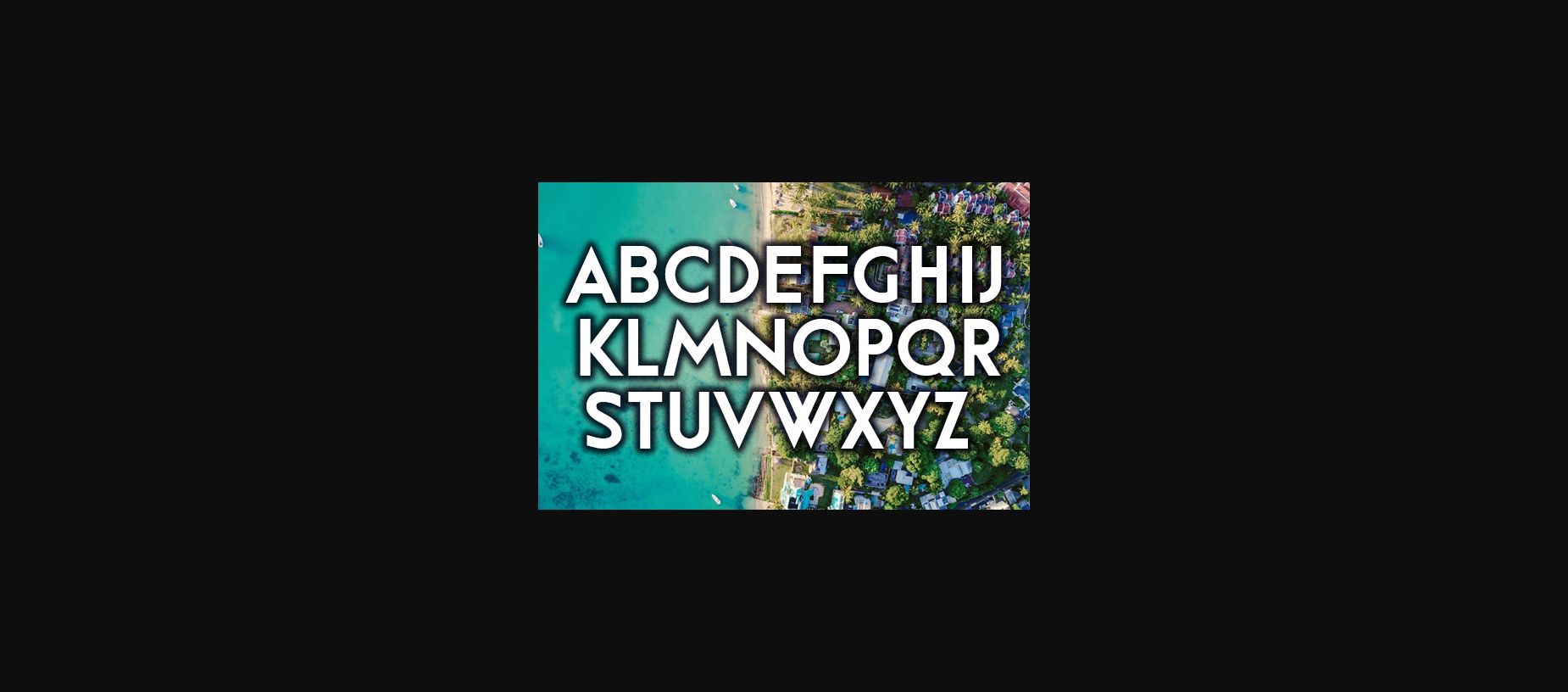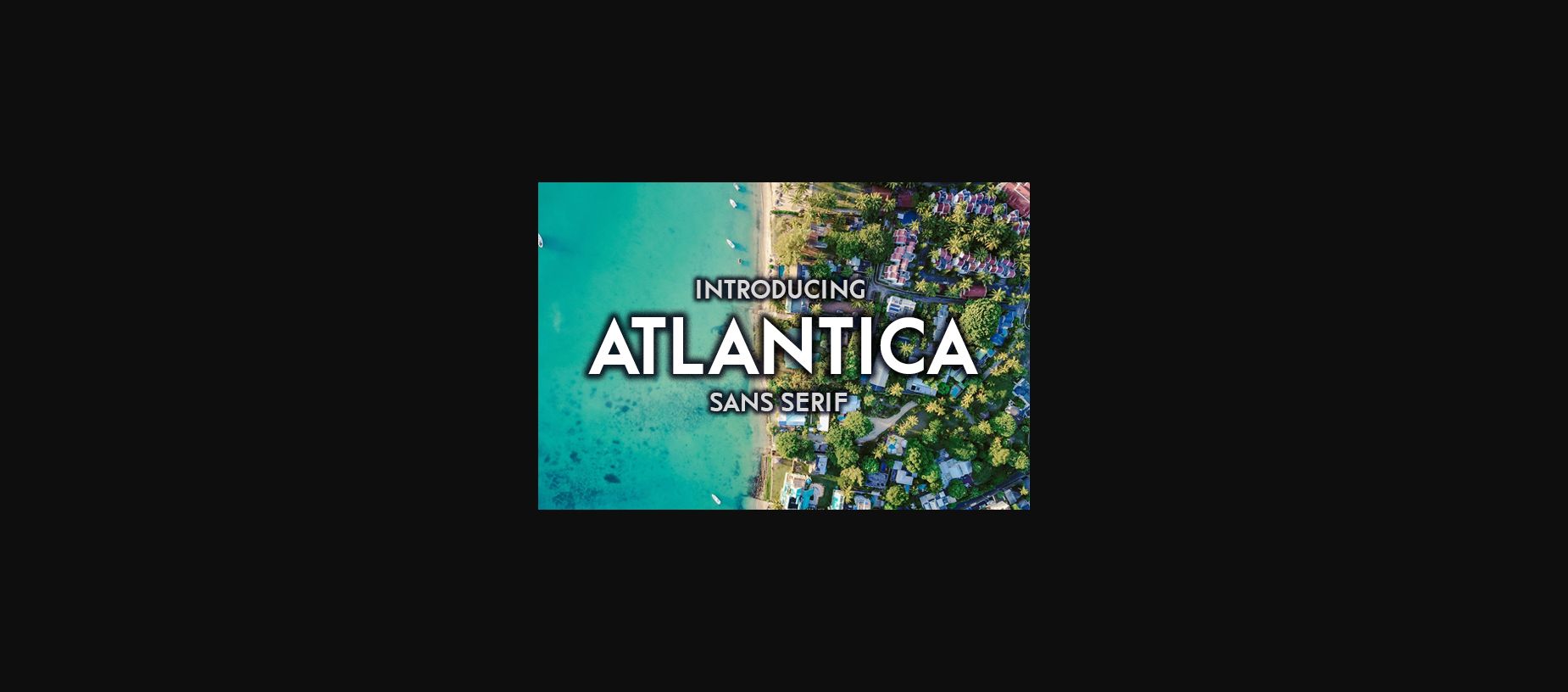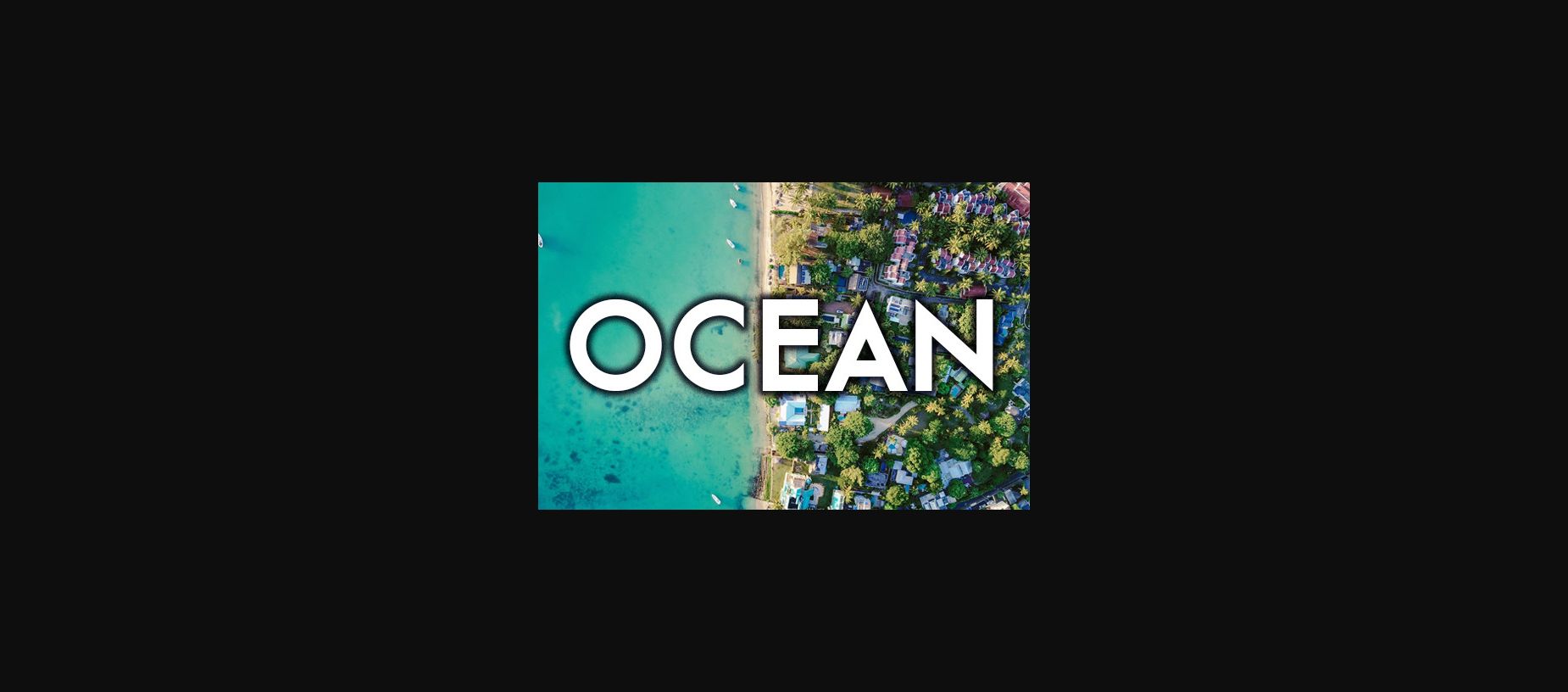
About Atlantica Font
Atlantica is a stylish and authentic sans serif typeface that will fit on your best projects. Use this font on posters, flyers and t-shirts.